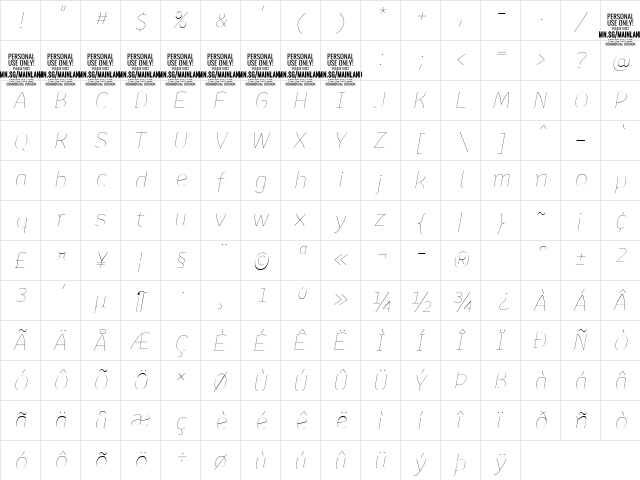
Mainland PERSONAL Thin Italic
Design Context for Mainland PERSONAL Typeface
Mainland PERSONAL is a composed and adaptable typeface that performs quietly and consistently across a wide range of design contexts. The slanted form adds forward momentum and visual energy. The delicate stroke weight brings airiness and refinement to layouts.